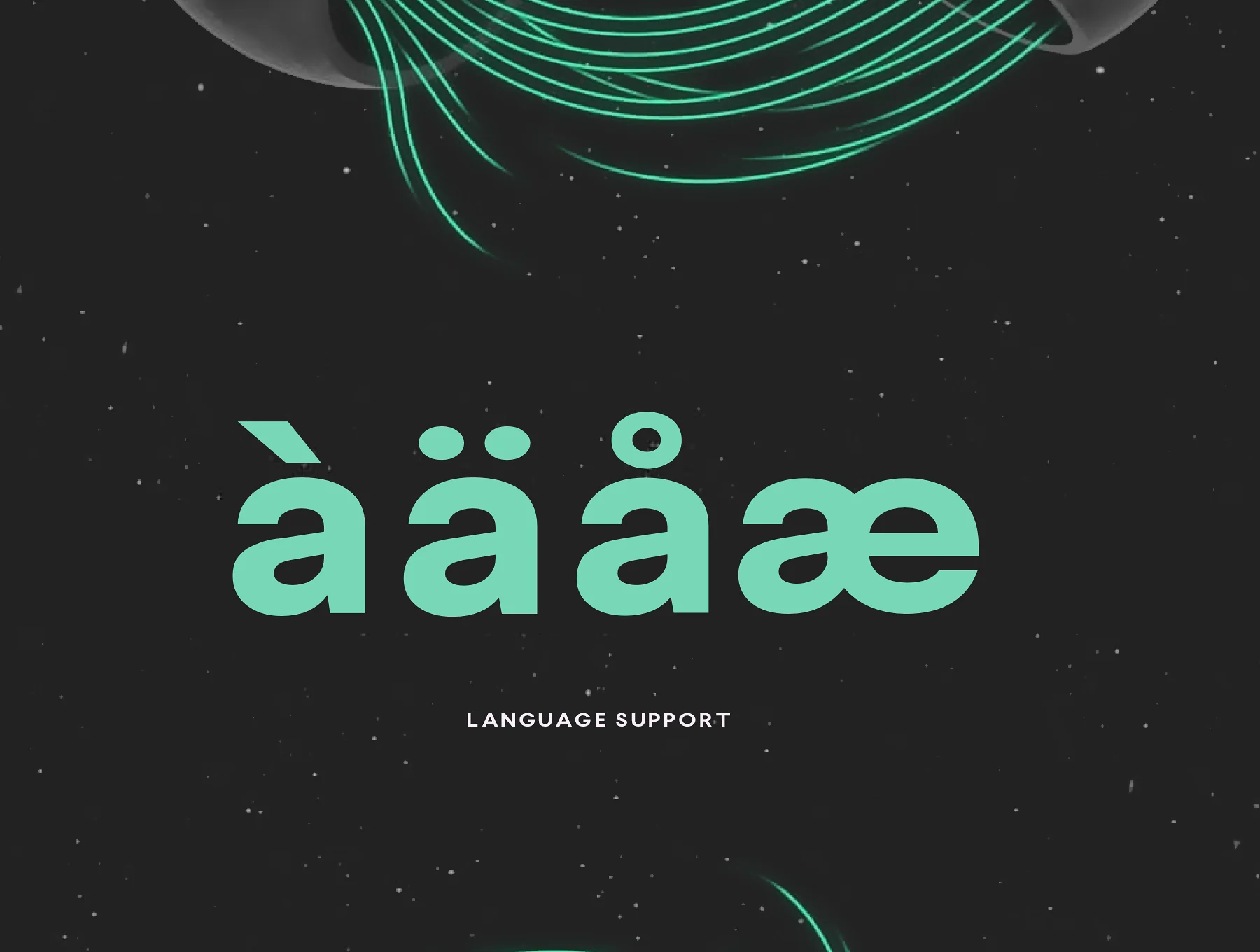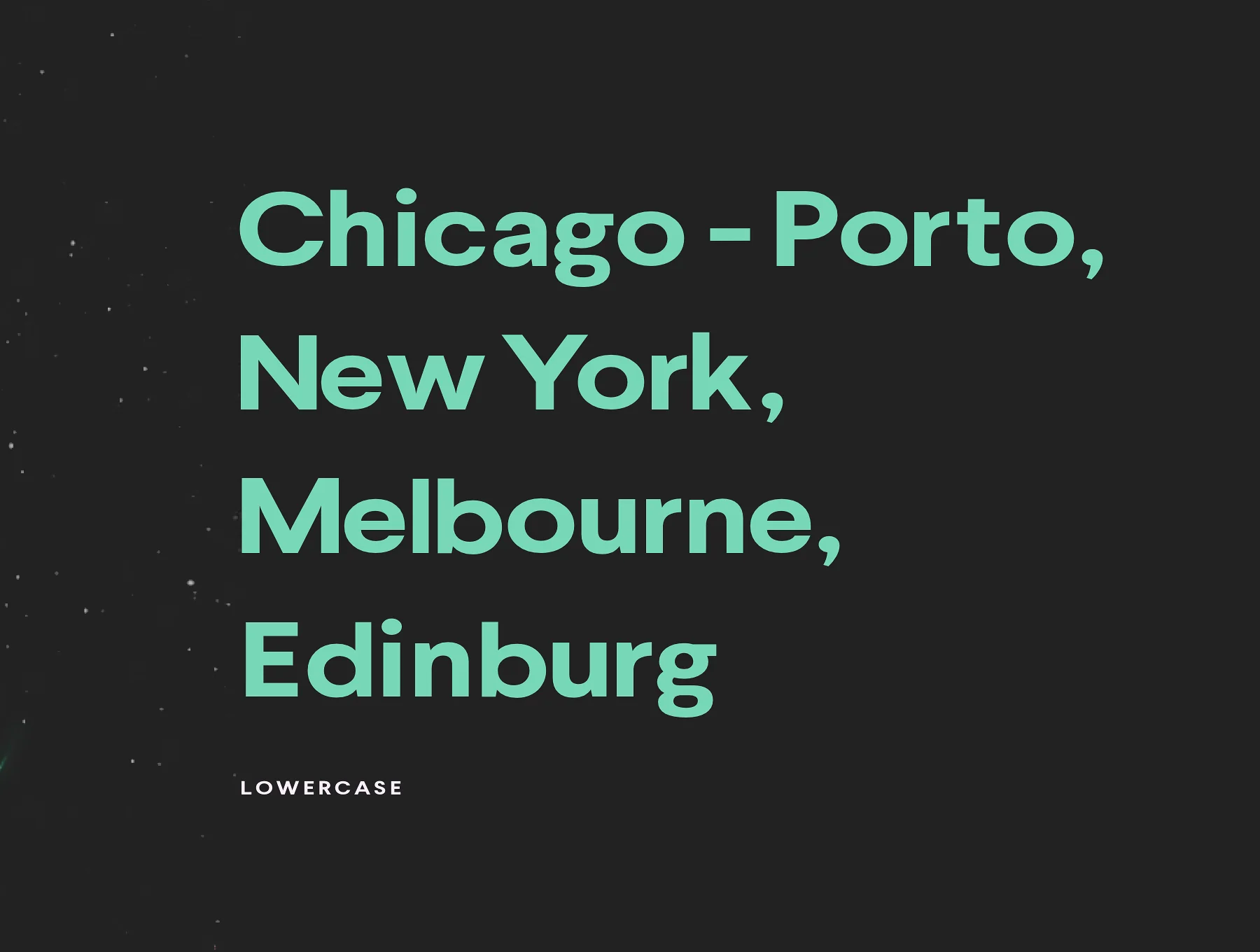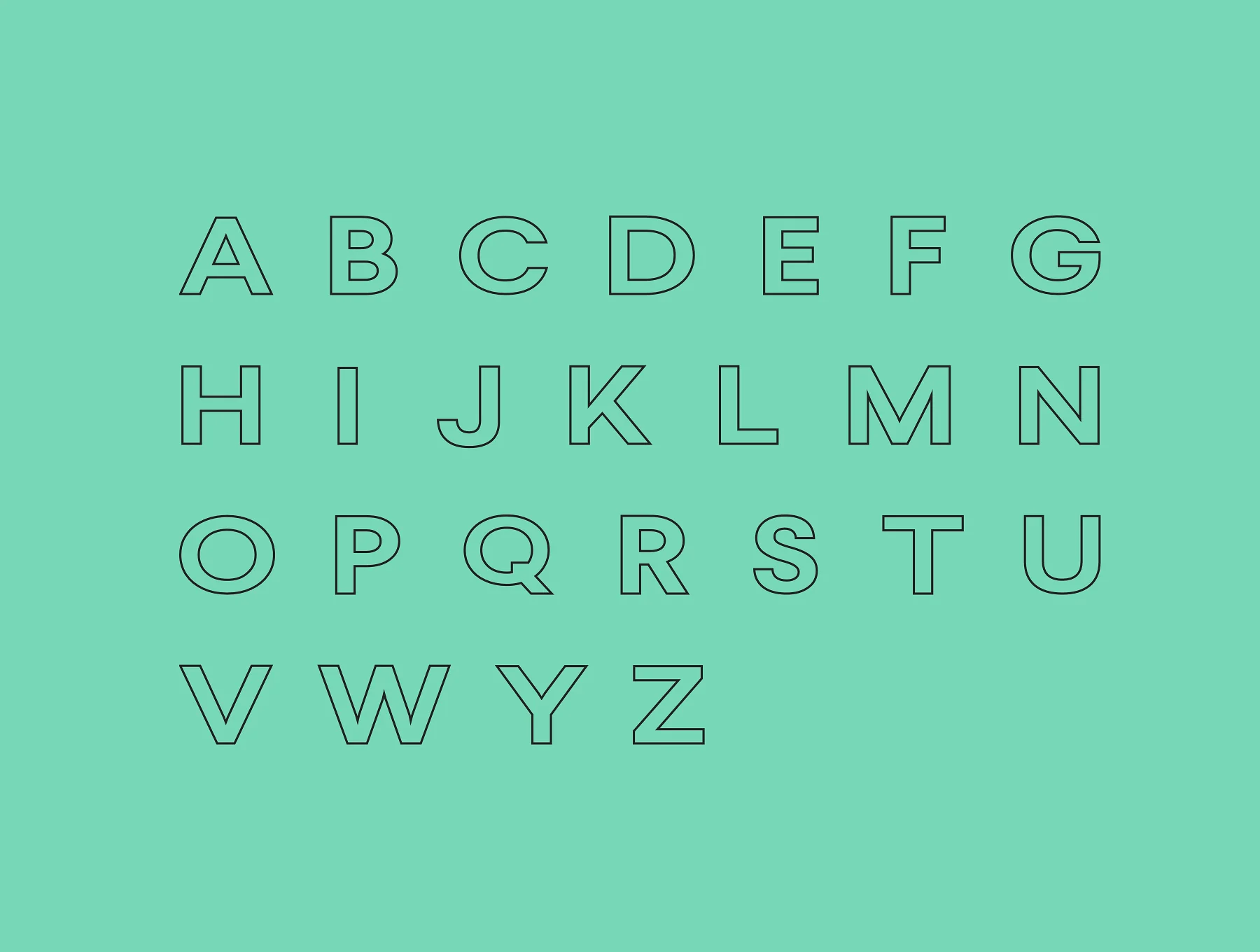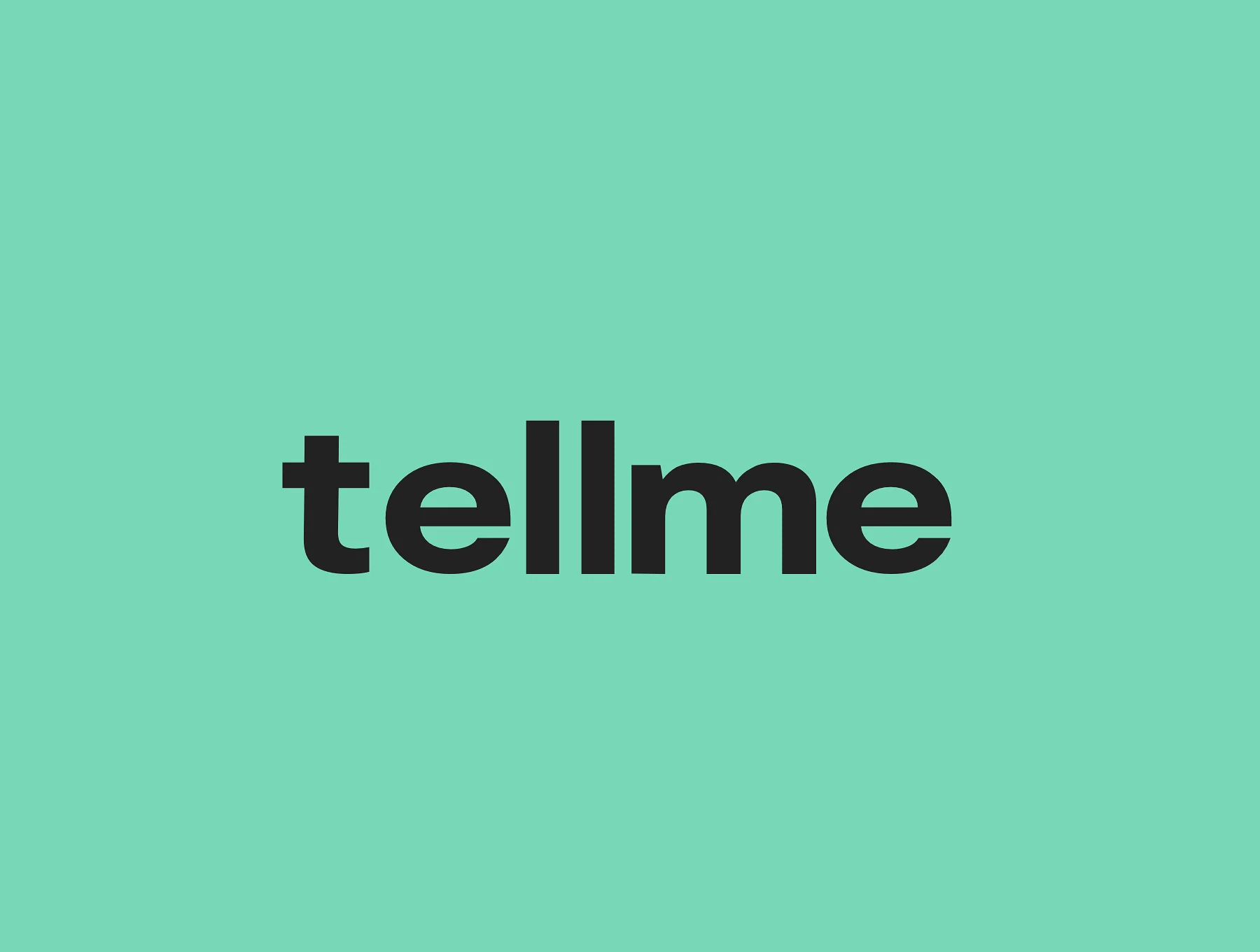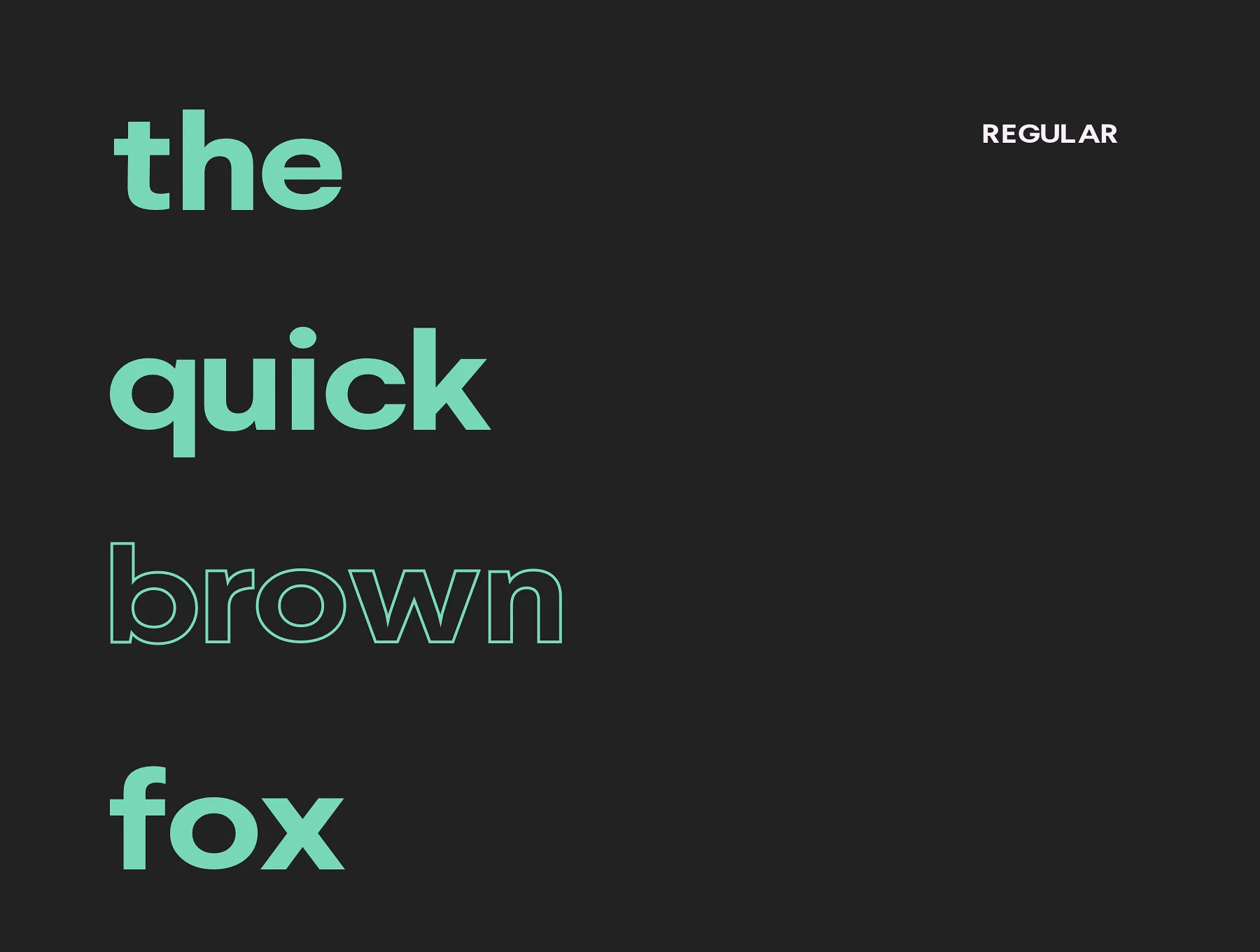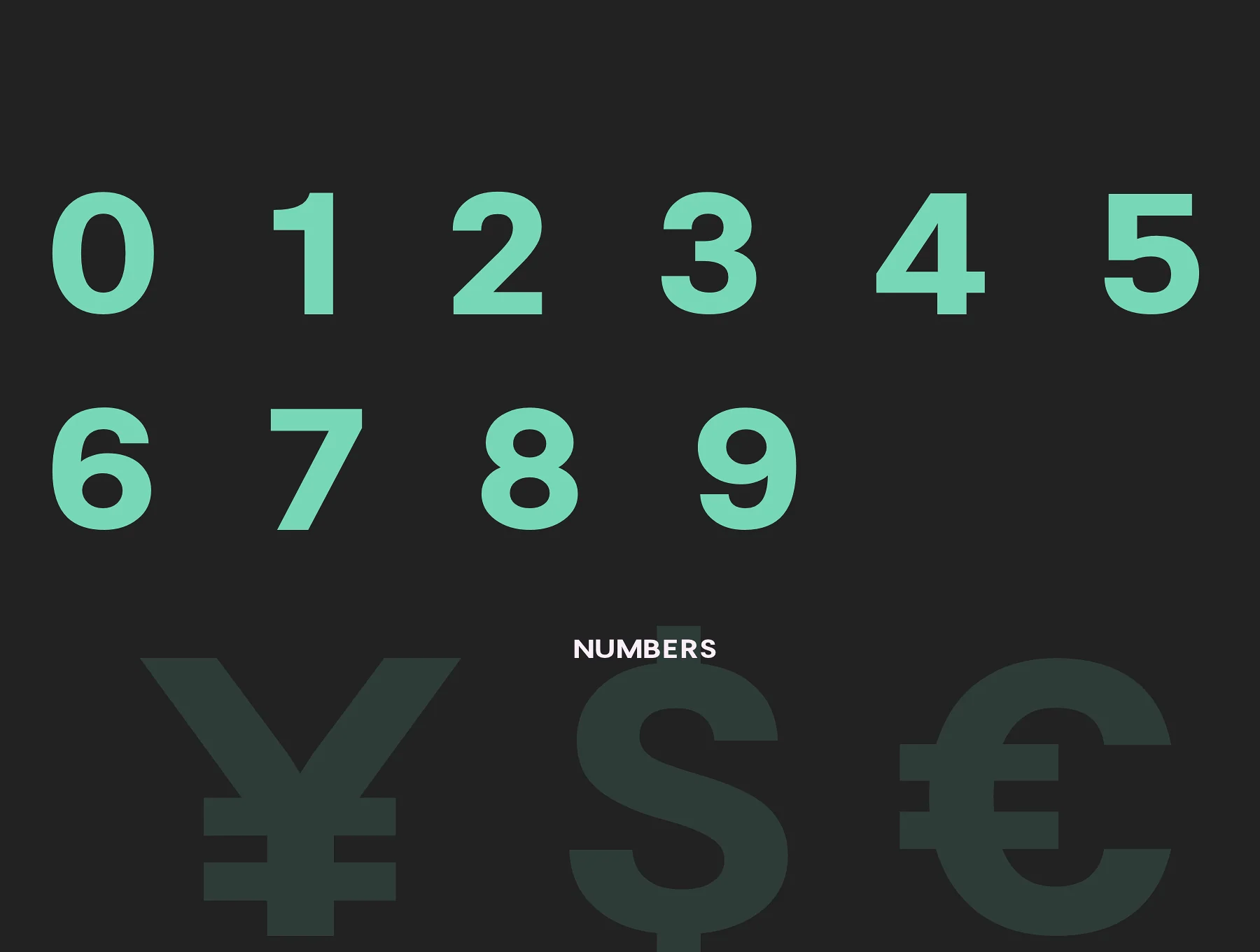
Bulta Typeface
A crisp, lively minimalist sans serif font
Sans-serif typeface
Set of 190 glyphs
Symbols and punctuation marks
Bulta is a crisp, lively geometric sans serif with a minimalist feel. It offers essential glyphs plus multilingual characters, making it ideal for headlines, posters, quotes, ads, T-shirts, branding, logos, merchandise, social posts, packaging, and many creative projects.